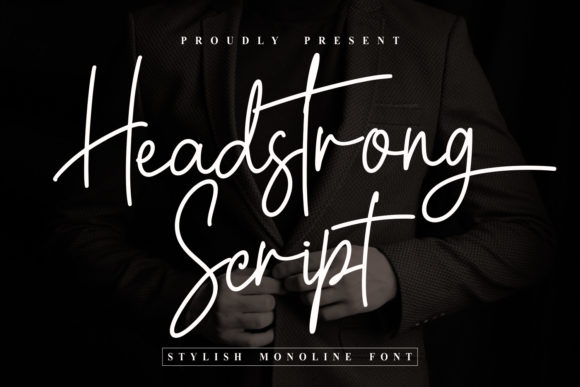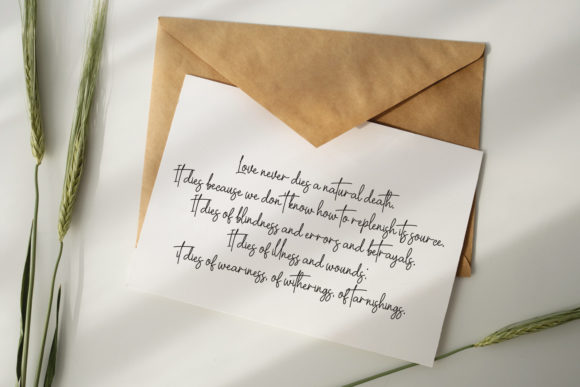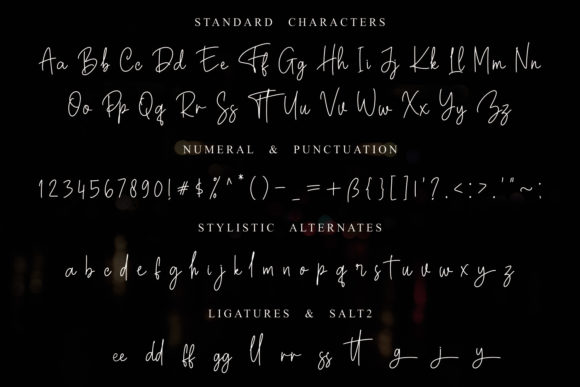
Headstrong Script Font
About Headstrong Script Font
Headstrong Script is a chic, refined script font that emanates sophistication and elegance. Its stylish alternates and ligatures make this font the perfect match for any project.